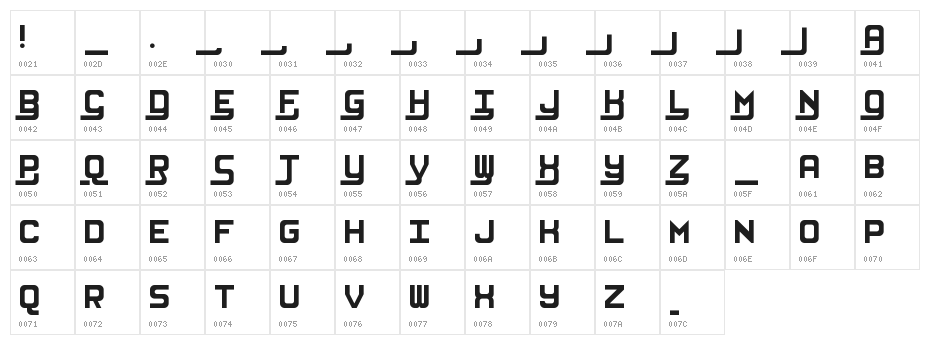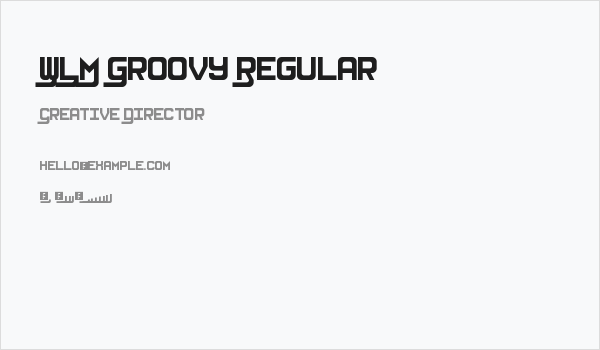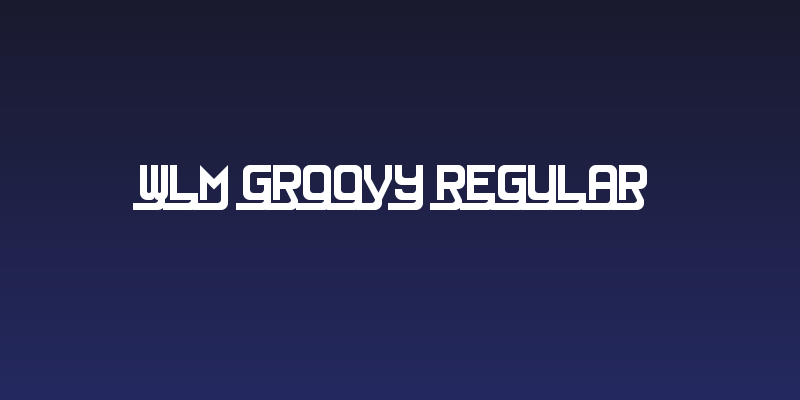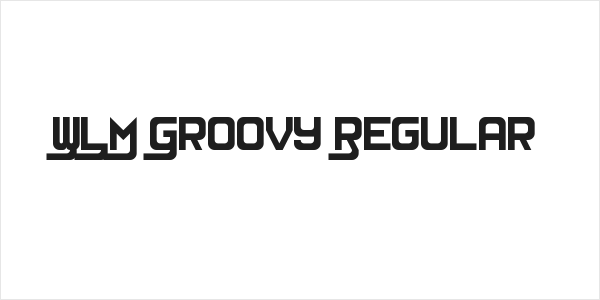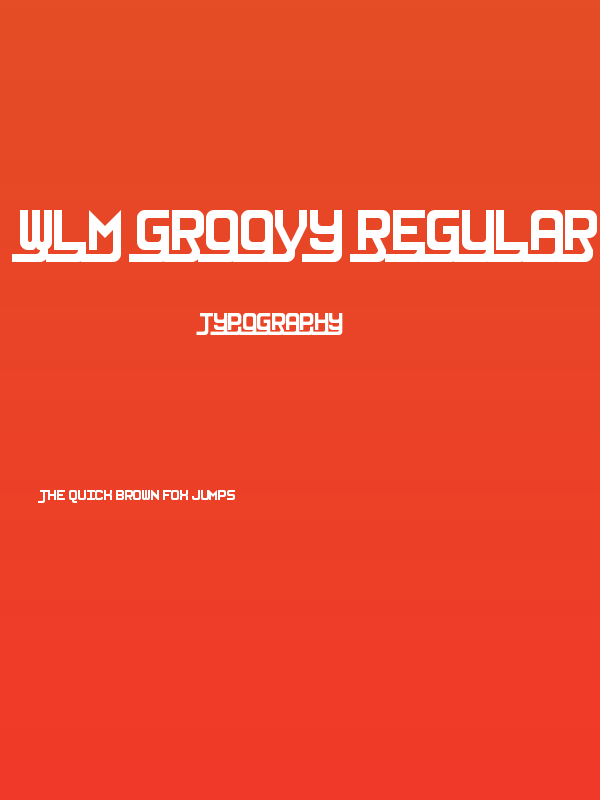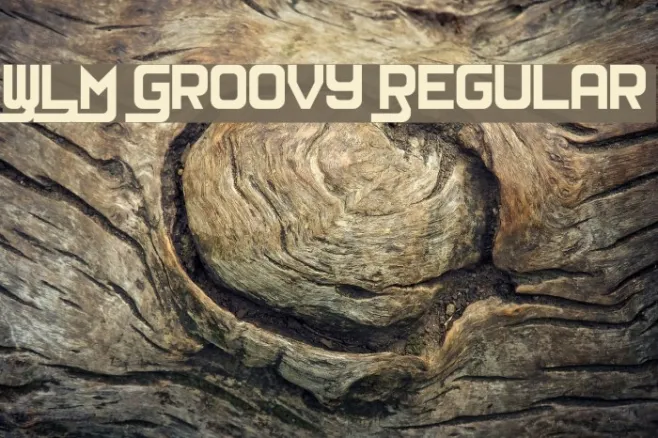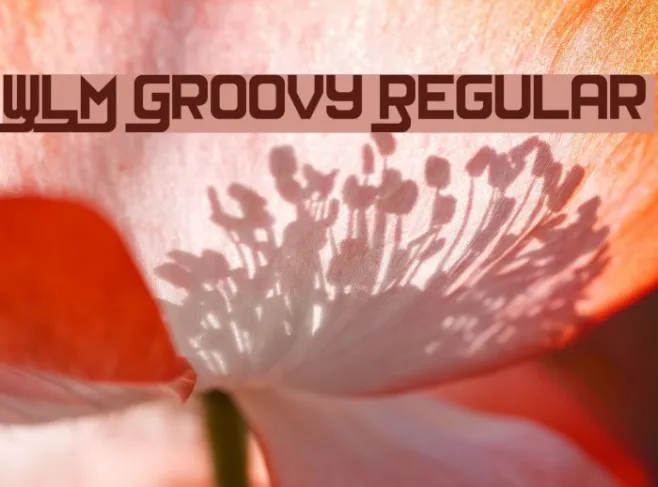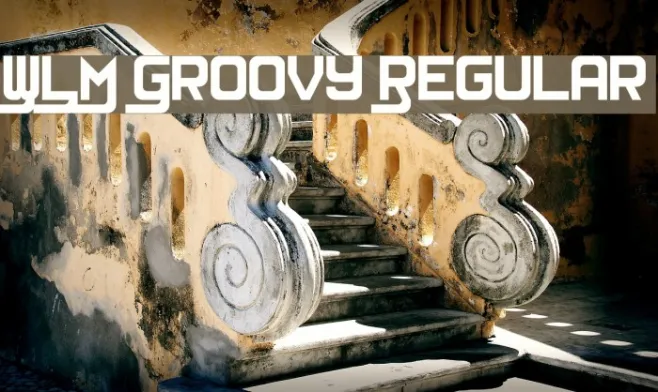
WLM Groovy Regular Font
WLM Groovy Regular Description
This font features a bold, geometric style with a modern flair. The characters are constructed with thick, uniform strokes that create a strong visual impact. The uppercase letters have a unique, blocky appearance with angular edges, while the lowercase letters maintain a consistent style, offering a cohesive look. The numbers and special characters follow the same design principles, ensuring a harmonious overall appearance. This font is ideal for projects that require a bold and contemporary aesthetic.